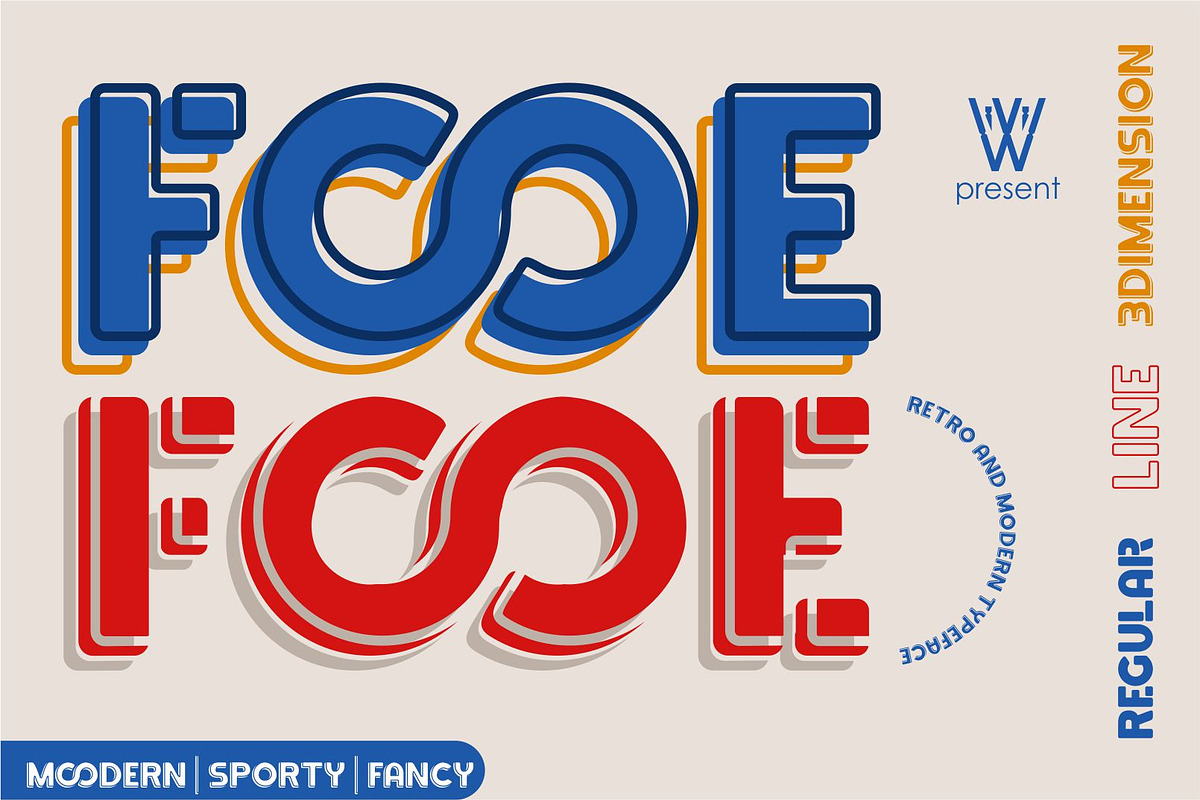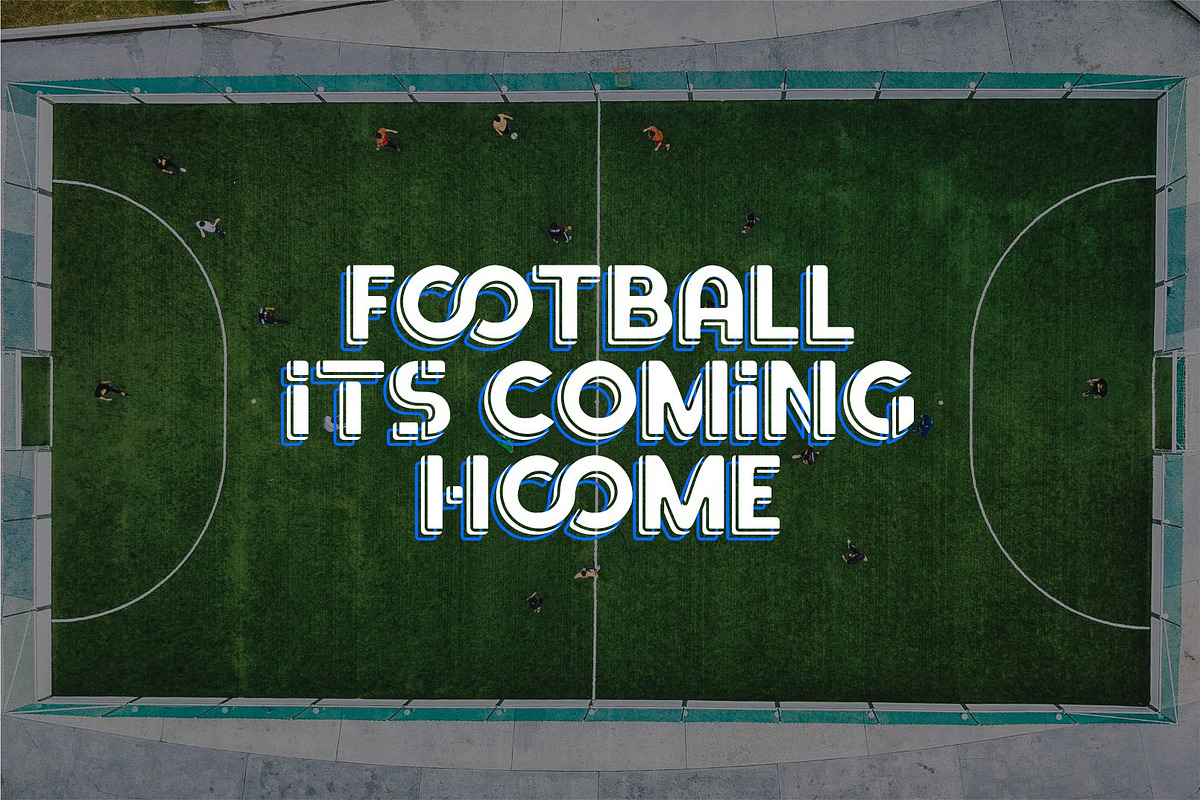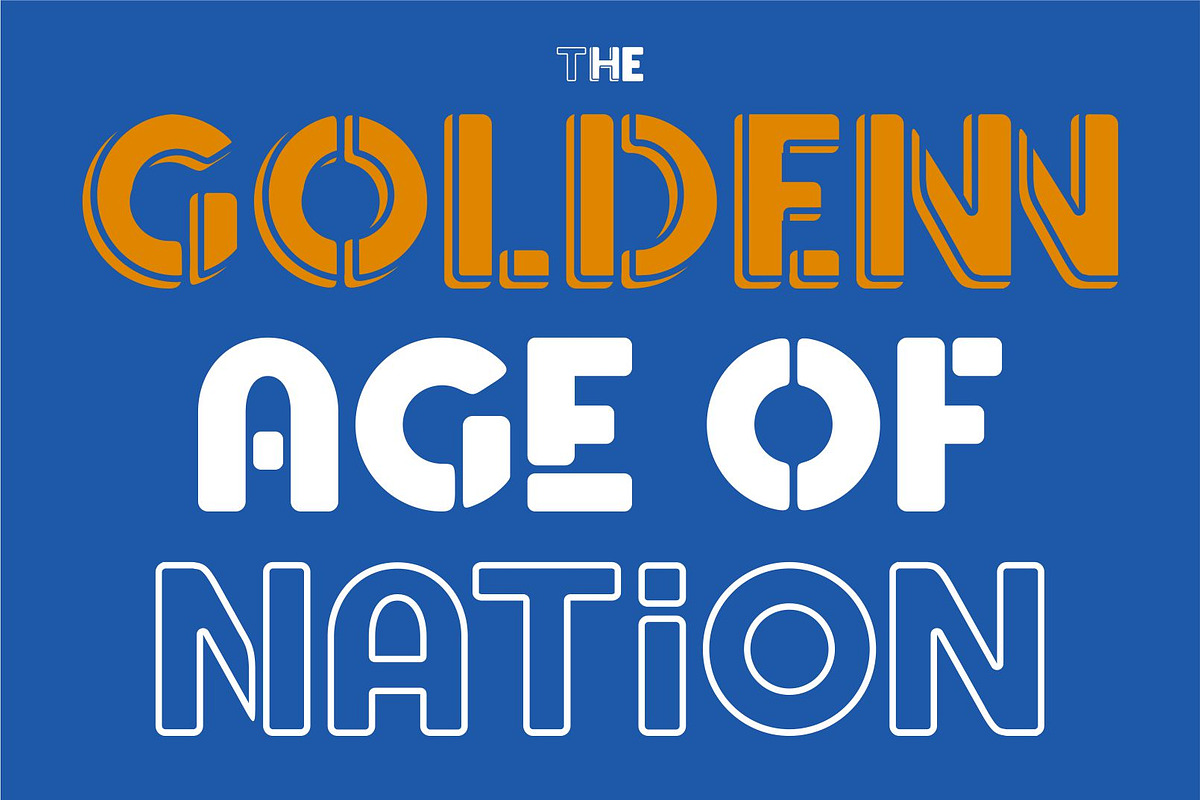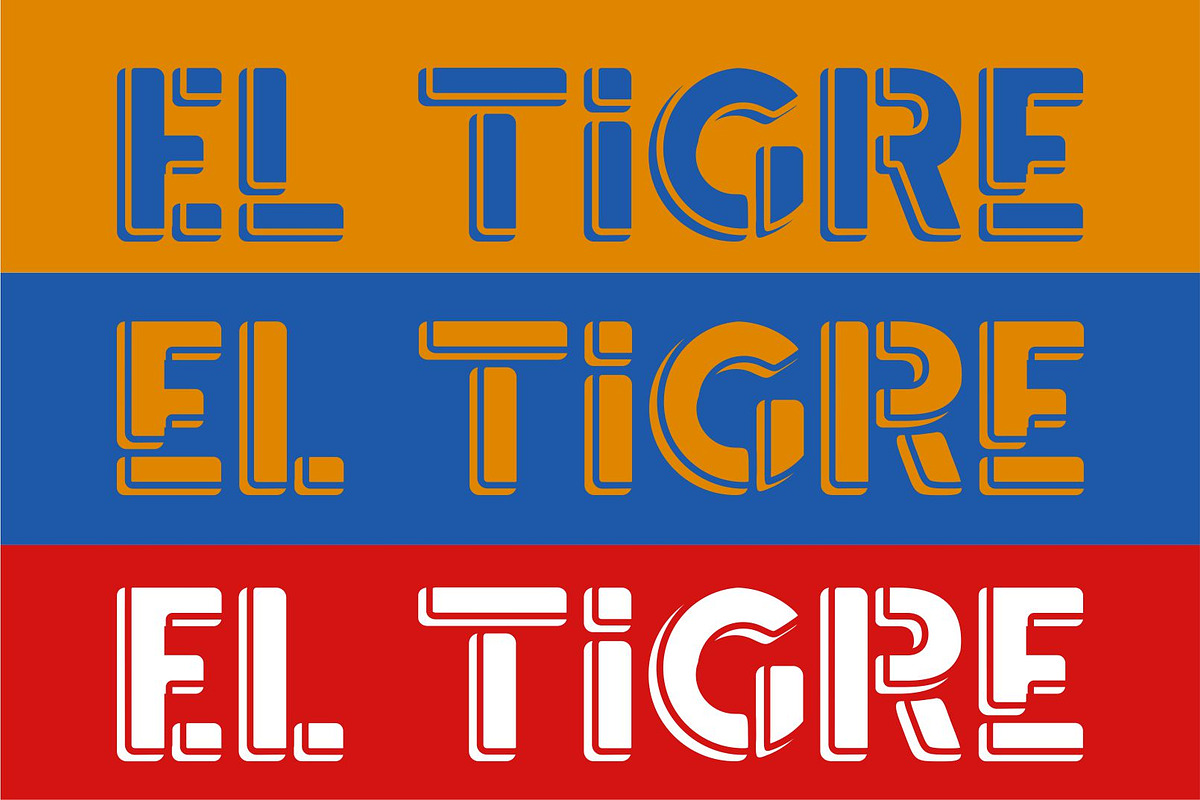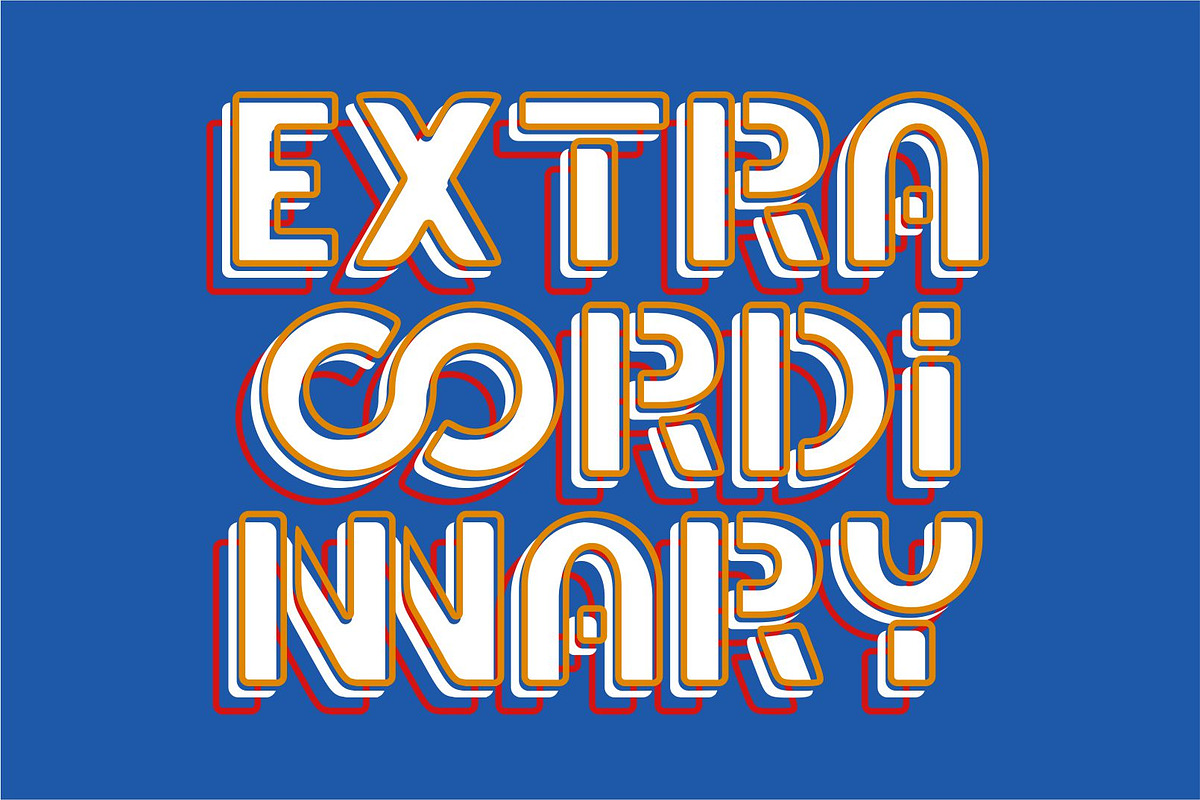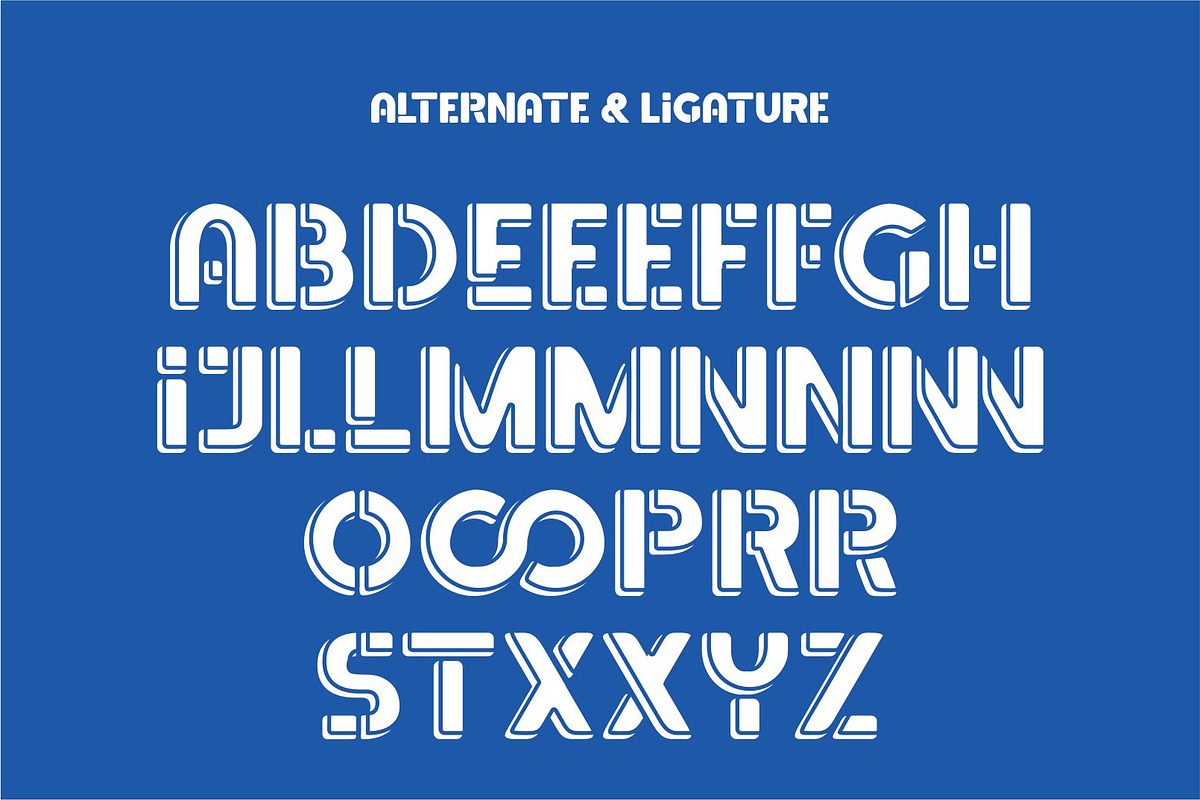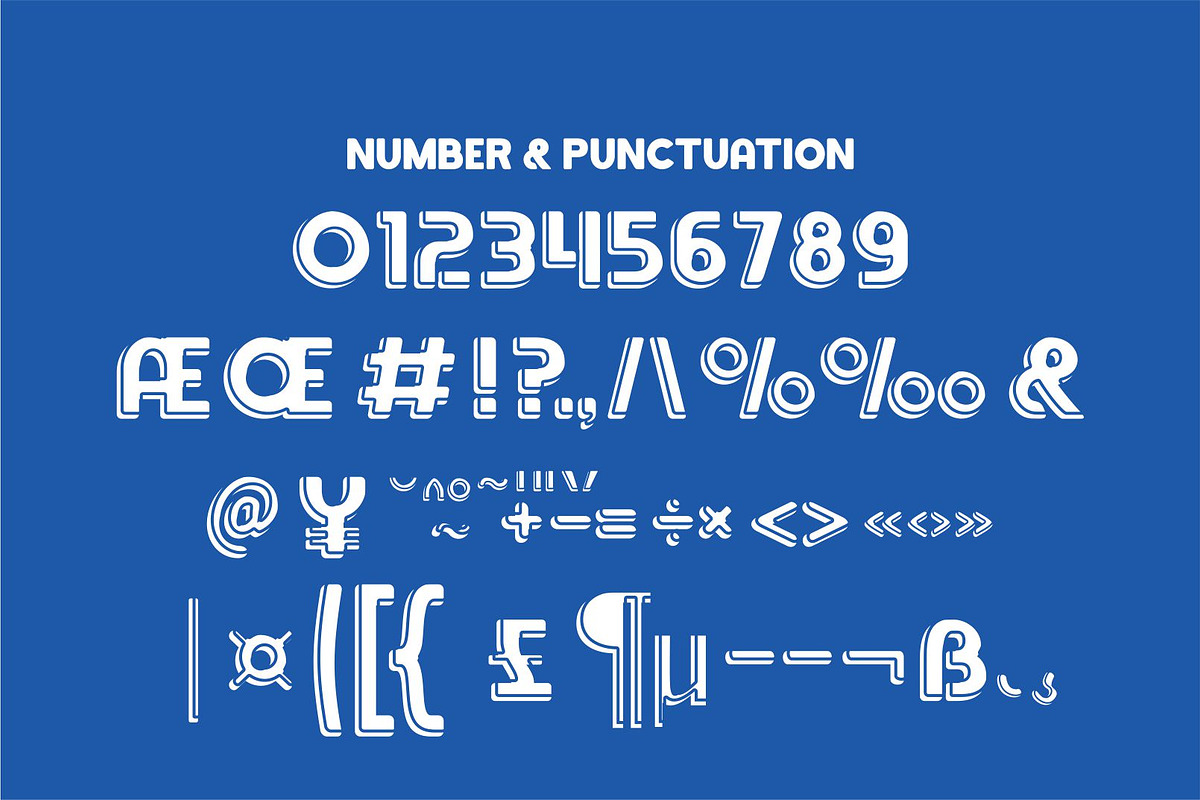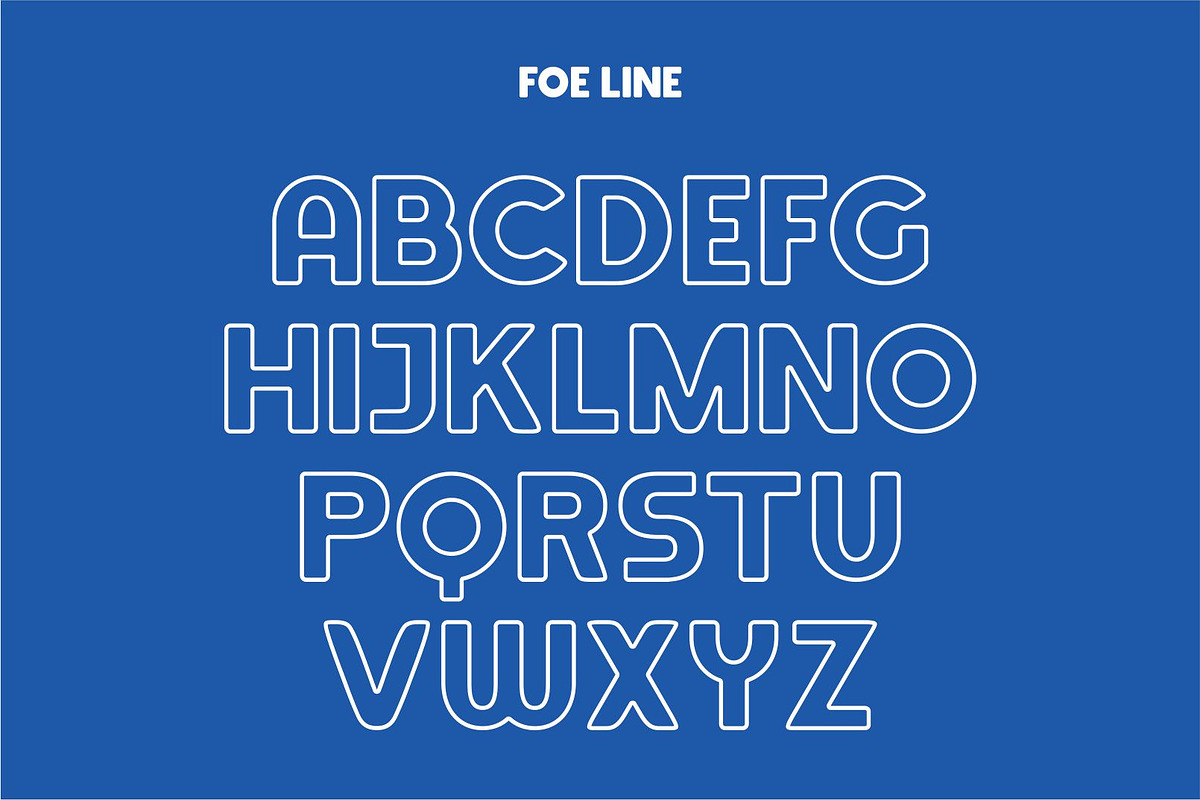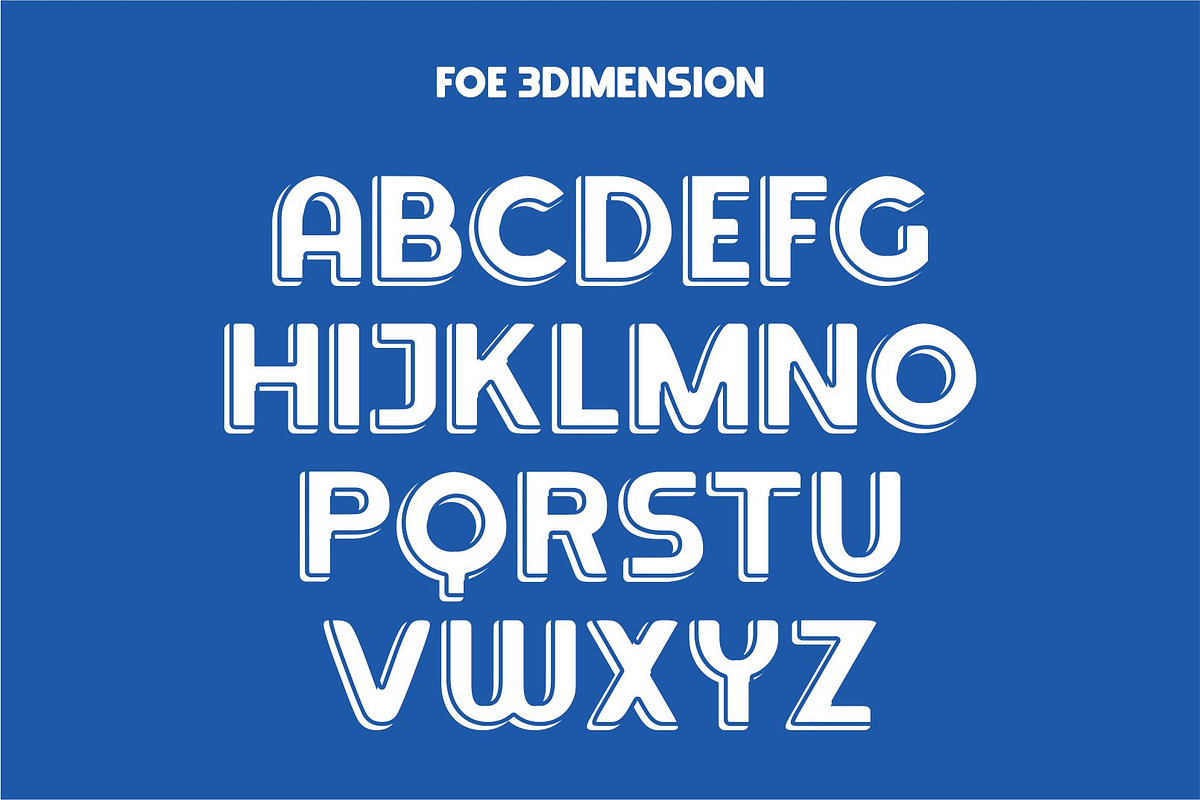
Fooe Fooe Font | Sporty Retro Font
The Fooe Fooe Font is a dynamic and energetic typeface that captures the essence of retro sports aesthetics. With bold letterforms and vintage-inspired details, this font brings a sense of nostalgia and excitement to any design project. Whether you’re creating posters for sporting events, retro branding materials, or apparel designs, the Fooe Fooe Font adds a playful yet authentic retro vibe. Its versatility and charm make it perfect for evoking the spirit of classic sports culture in your designs.